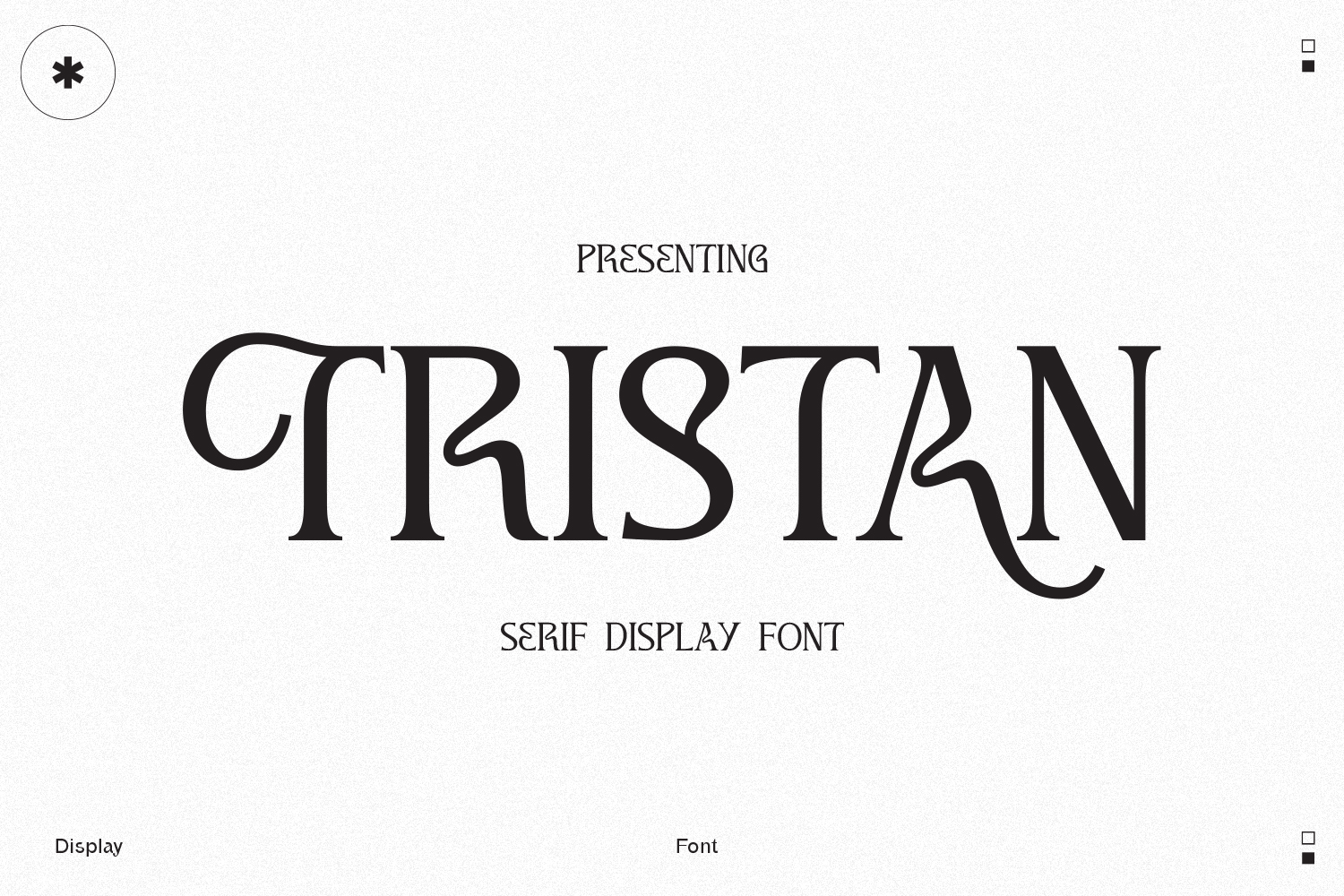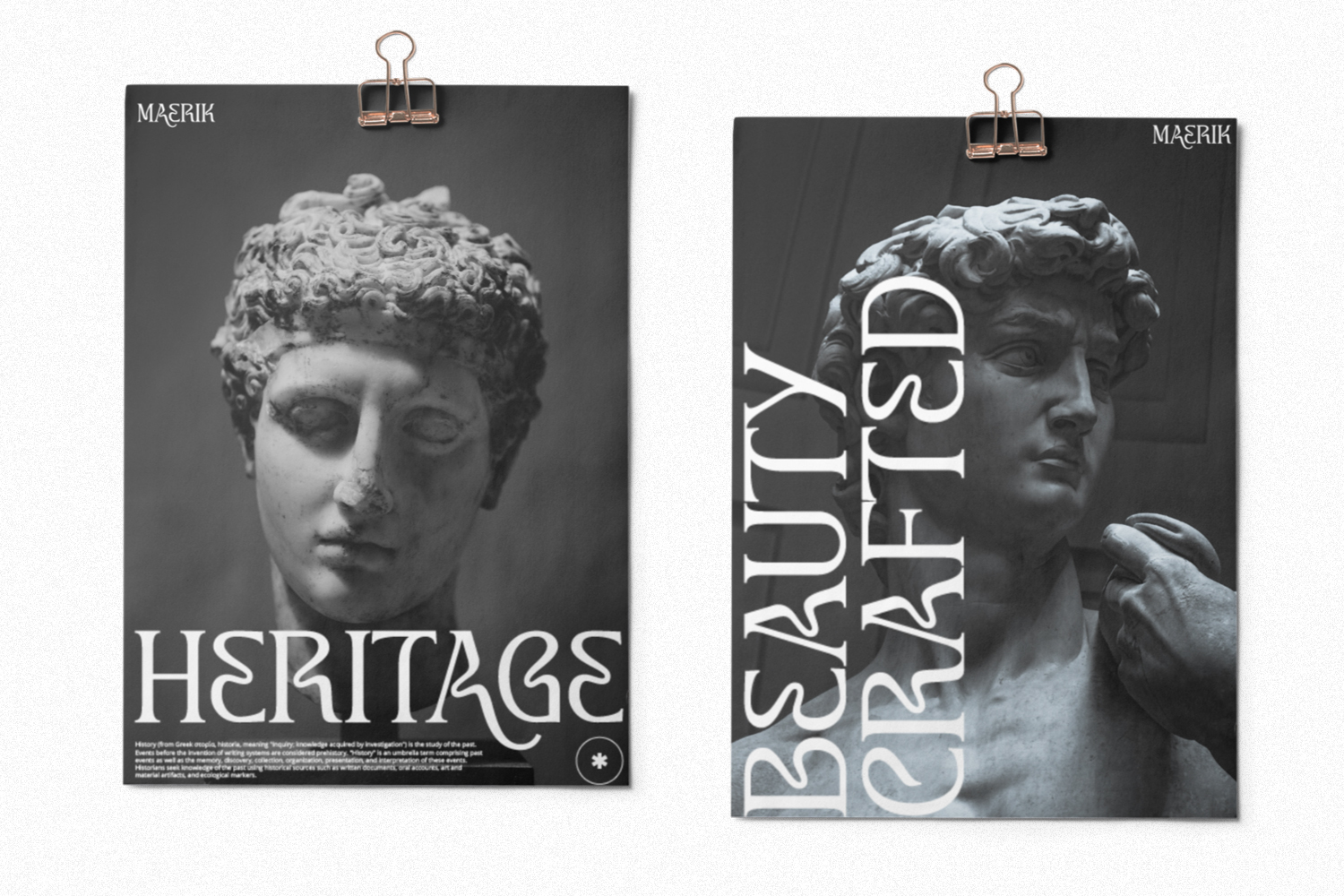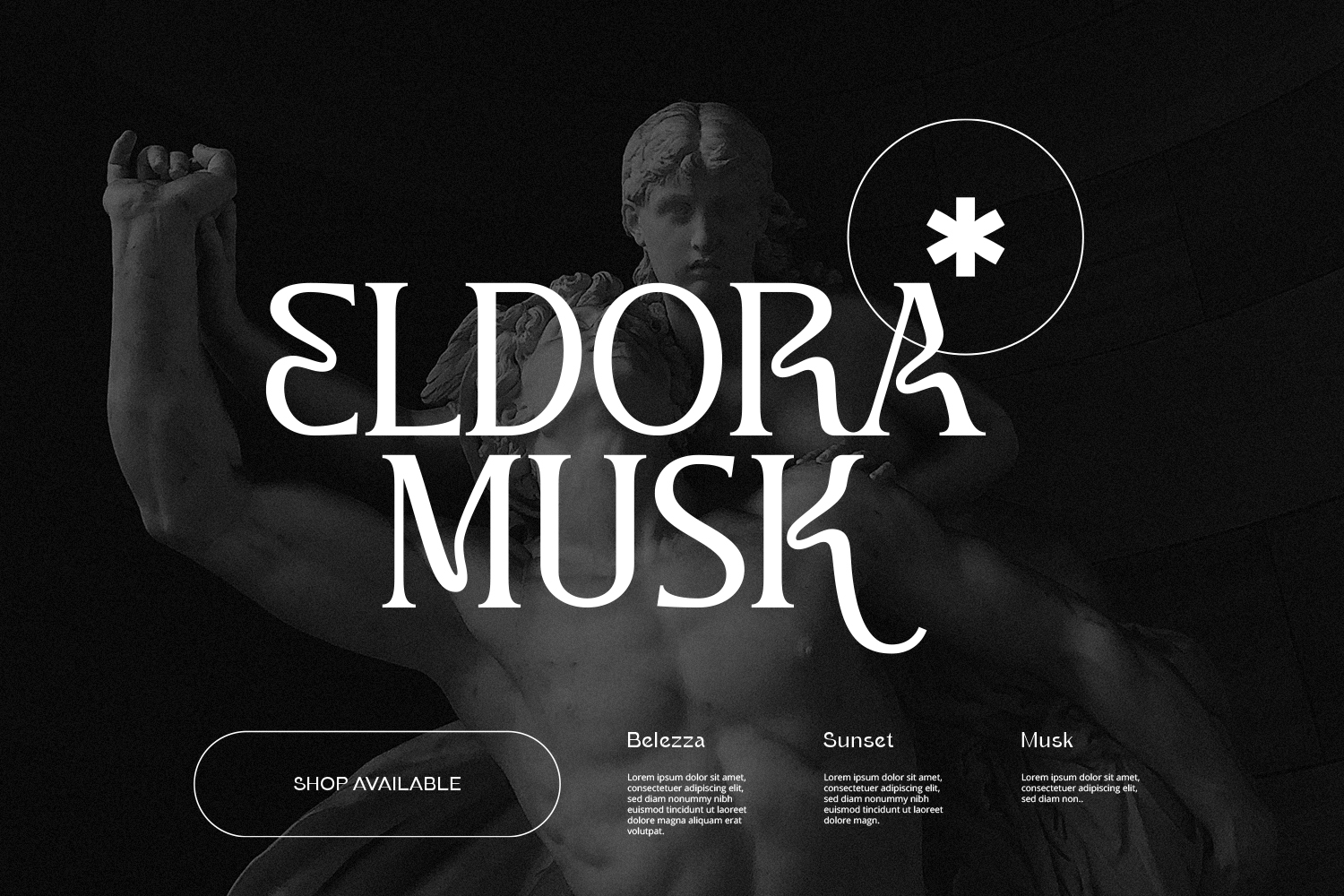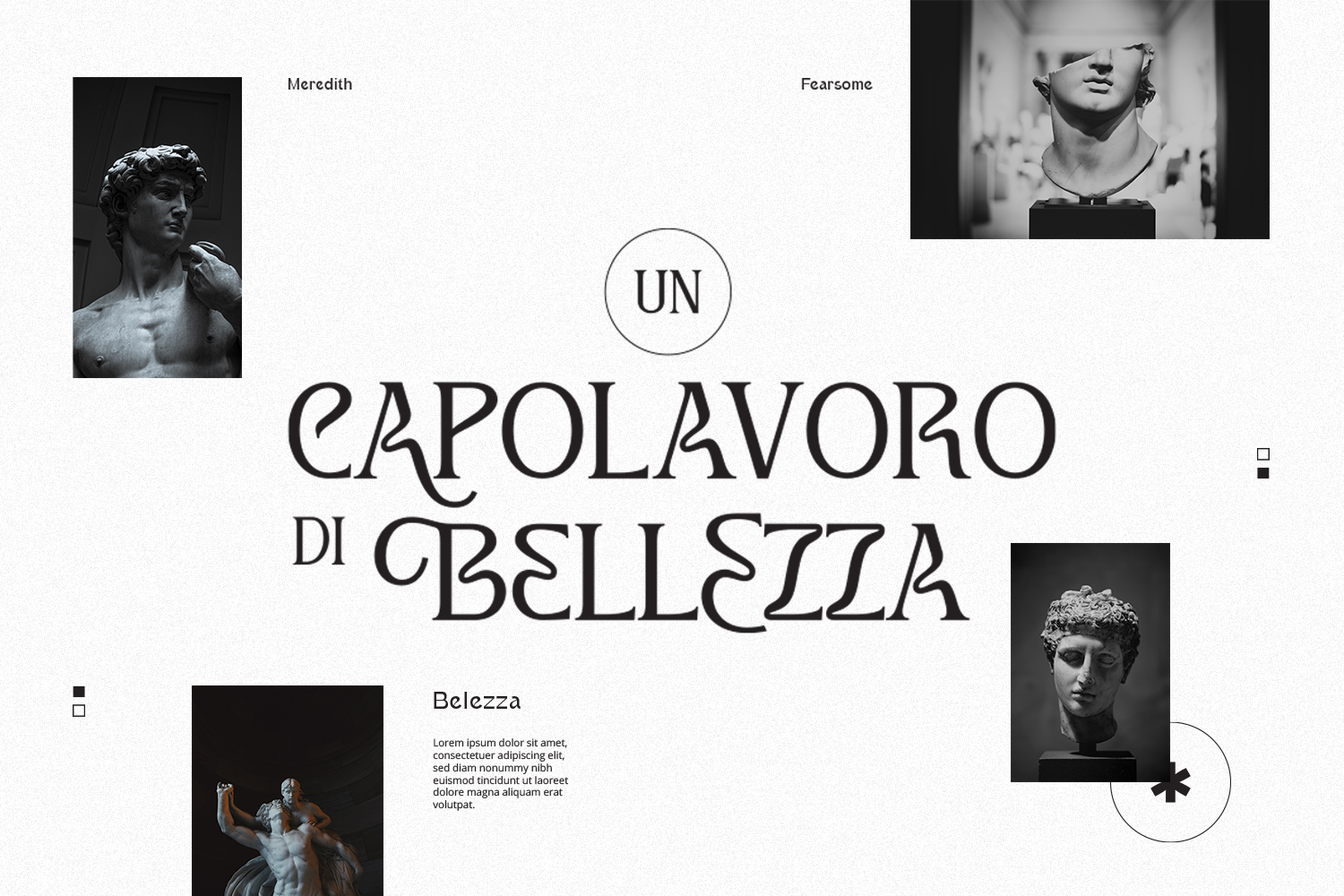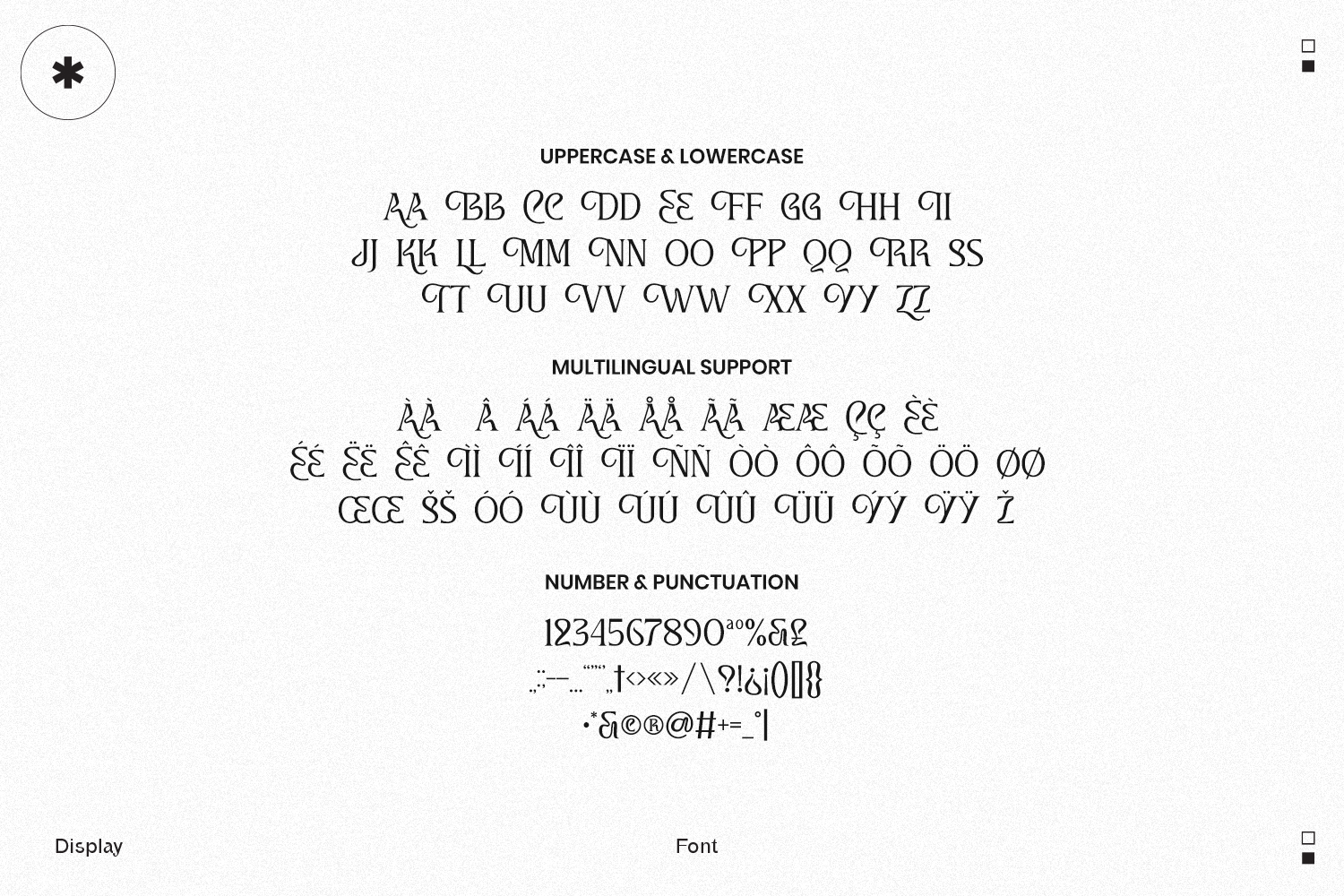
Tristan is a refined serif display font that combines elegance with a touch of artistic flair. With its uniquely crafted letterforms, the font evokes a sense of classical sophistication, perfect for projects that demand a luxurious, heritage-inspired aesthetic. The subtle curves and sharp contrasts make Tristan ideal for headlines, editorial layouts, packaging, and branding that seek timeless beauty.
Designed with multilingual support and a complete set of uppercase, lowercase, numerals, and punctuation, Tristan offers both flexibility and style. Whether used for art galleries, fashion campaigns, or high-end products, Tristan delivers an elevated typographic experience with a modern-classic appeal.
Tristan